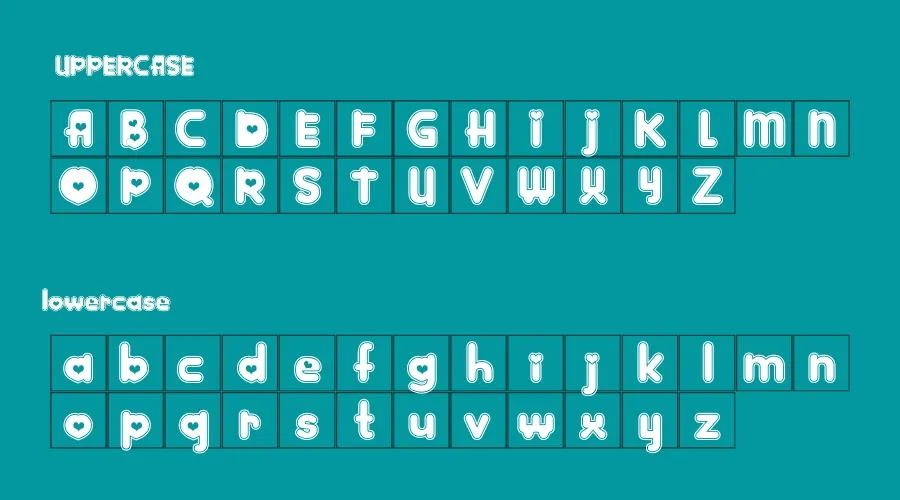
Kinkie Font
About Kinkie Font
Fontalicious is the creator of the kinkie Font. It is a Cartoon font. Whether you are a graphical creator or web designer, this font is an adjustable font for a diversity of ventures. You can download its free version in OTF and TTF file versions.
As the main idea behind creating this typeface is to provide unique but functional designs that would be ideal choices among different fonts, we wanted to create a typeface that would provide unique yet functional designs.
The typeface can be utilized for equally electronic also printed pattern projects. Additionally, appropriate for headings, body text, and symbols. Also supreme for tagging, advertising, and packaging pattern.
Additional sites you can utilize this typeface include pages, pamphlets, leaflets, billboards, company cards, displays, books as well as journals.
Name Kinkie Font
Designer Fontalicious
Style Cartoon
• Kinkie Regular
Microsoft Word supports kinkie font. This typeface is easy-to-read, even in smaller sizes. For web content, it is a good choice for body text, headlines, and short blocks of text.
Does kinkie Font have good readability?
A substantial character set and unique glyphs are included in the typeface. This typeface is easy to read, and that’s what makes it so good.
Who is the designer of the kinkie Font?
Fontalicious has been tasked with creating this attractive font.